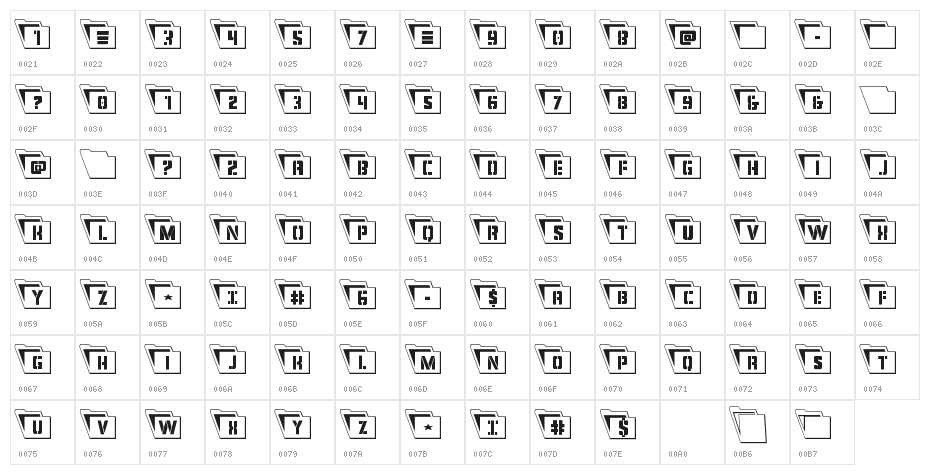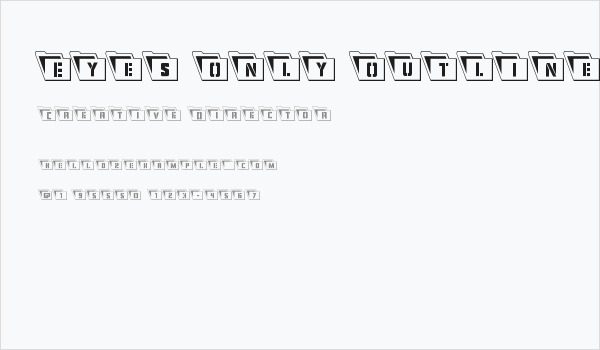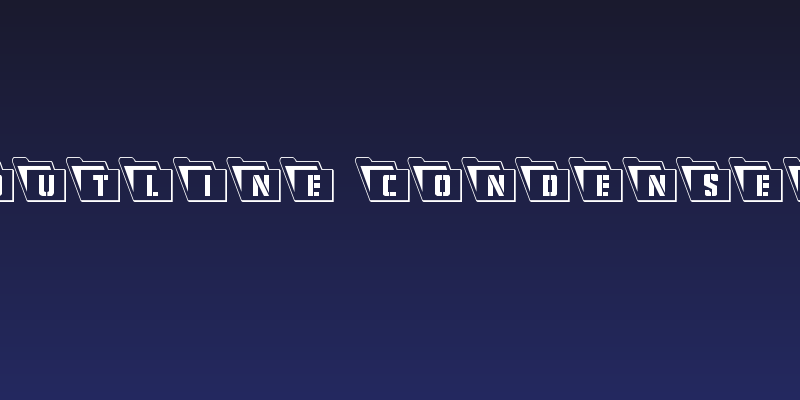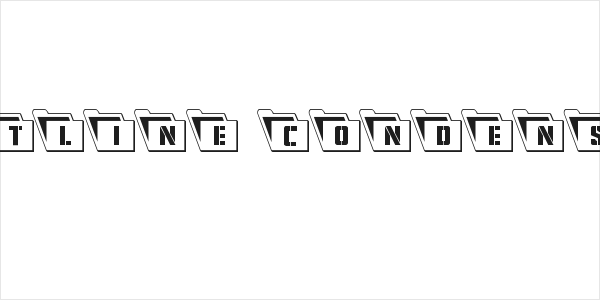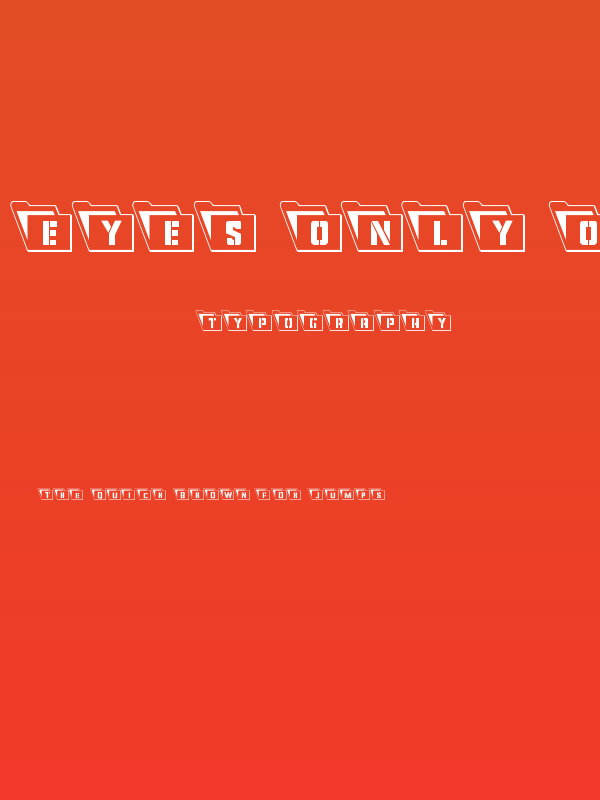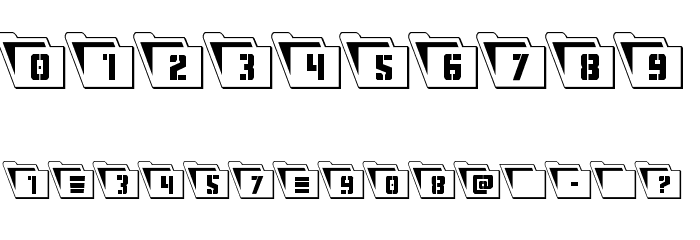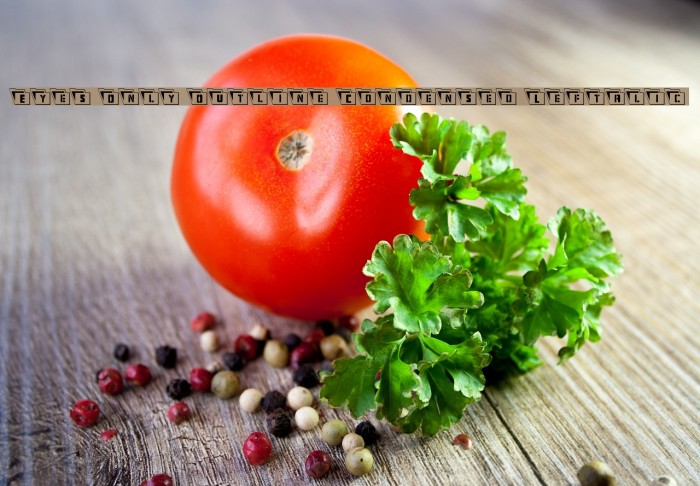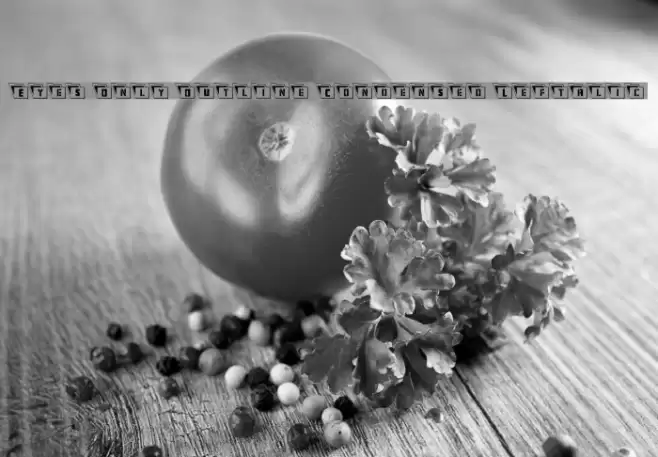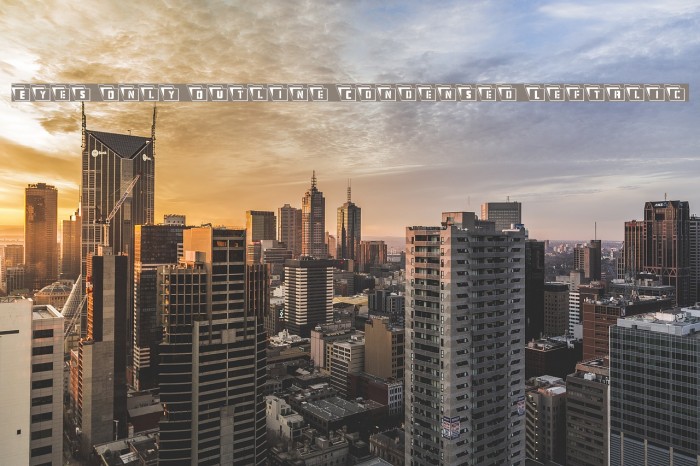
Eyes Only Outline Condensed Leftalic Font
Eyes Only Outline Condensed Leftalic Description
This font features a unique and bold design with a distinct outline style. Each character is enclosed within a folder-like shape, giving it a three-dimensional appearance. The letters are uppercase and lowercase, with numbers and special characters included. The style is condensed and italicized to the left, creating a dynamic and eye-catching effect. The font's playful and modern aesthetic makes it suitable for creative projects that require a standout typeface.
| Proposed Projects | Ideal for posters, album covers, branding, and any project needing a distinctive and modern typeface. |